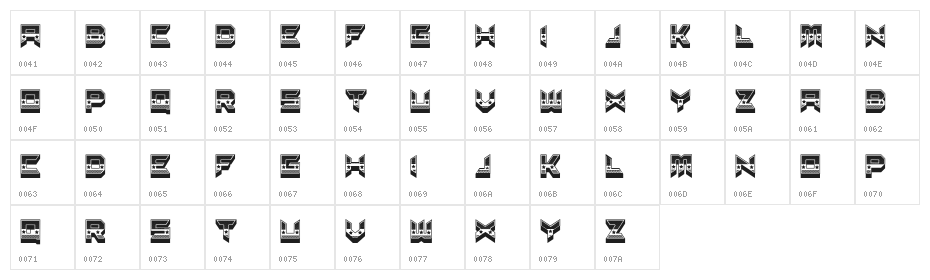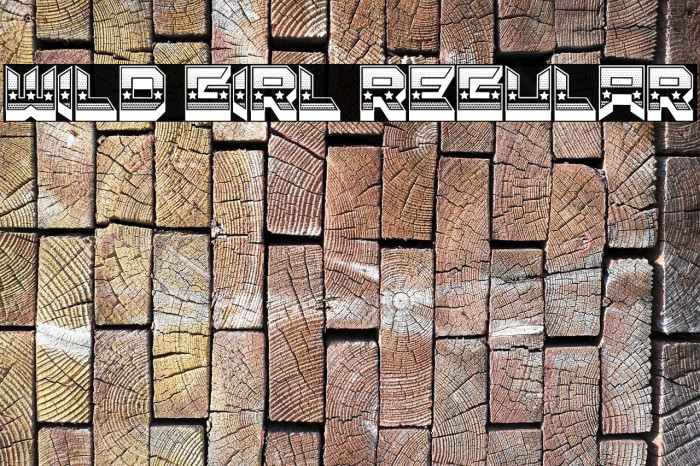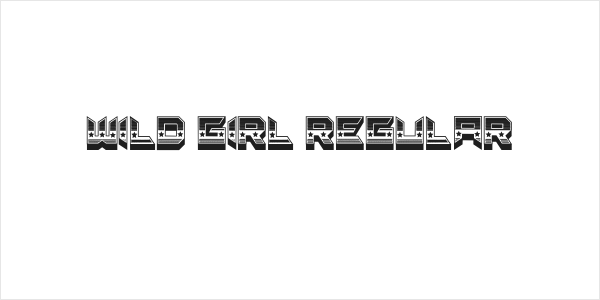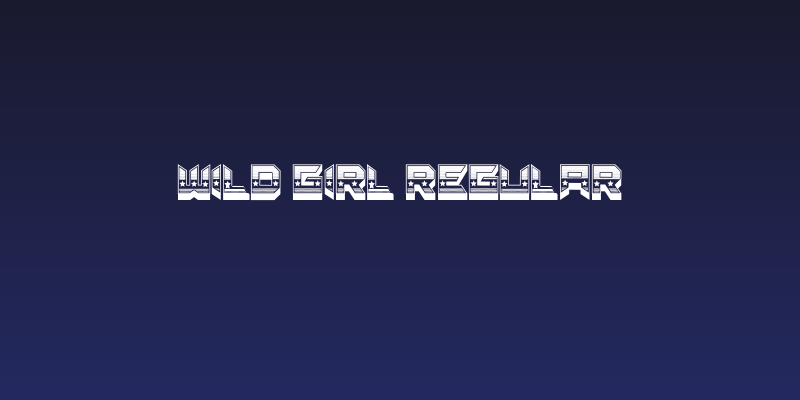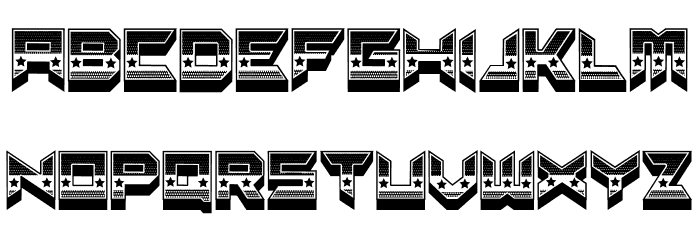
Wild Girl Regular Font
Wild Girl Regular Description
This font features a bold, decorative style with a three-dimensional appearance. Each character is adorned with stars and stripes, giving it a dynamic and playful look. The letters are outlined with a thick border, enhancing their visibility and impact. The design incorporates a sense of movement and energy, making it ideal for eye-catching displays. The intricate detailing within each letter adds depth and complexity, making it suitable for projects that require a strong visual presence.
| Proposed Projects | Ideal for posters, event flyers, music album covers, and branding that requires a bold statement. |